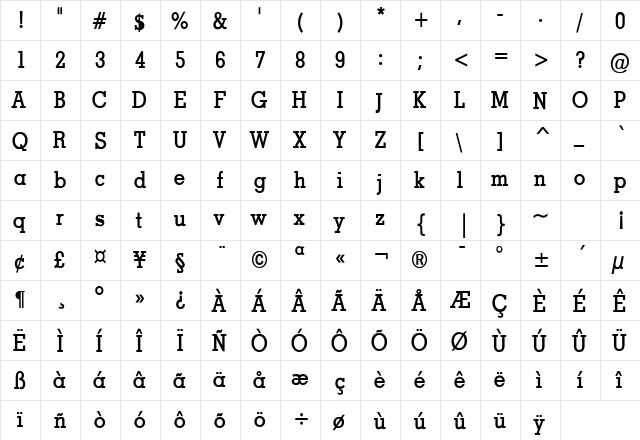
Geo Condensed Bold
Design Context for Geo Condensed Typeface
Geo Condensed is a composed and adaptable typeface that performs quietly and consistently across a wide range of design contexts. Its bold stroke weight gives it real presence on the page. The condensed width makes it efficient for tight spaces without sacrificing legibility.